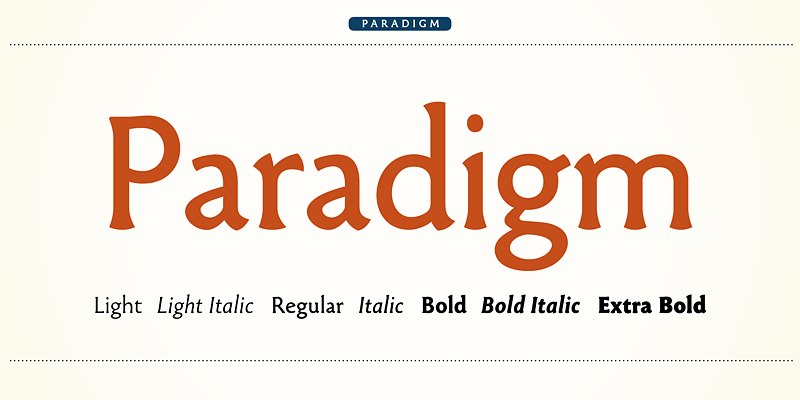
Paradigm Pro Font Free Download is a sleek and sophisticated serif typeface that blends classic elegance with contemporary design. With its refined strokes, stylish ligatures, and high-contrast letterforms, Paradigm Pro is perfect for editorial design, luxury branding, book covers, fashion magazines, and upscale packaging. It brings a sense of professionalism and timeless beauty to any project.
Designed for those who appreciate detail and precision, Paradigm Pro offers a well-balanced structure that enhances both readability and visual appeal. Its graceful curves and carefully crafted serifs make it a standout choice for headlines and large-format typography, while still holding its own in smaller body text.
If you're looking to add a refined, high-end feel to your next project, Paradigm Pro is the font to trust. It’s elegant, versatile, and built to impress. Try it today and elevate your typography with style and sophistication.